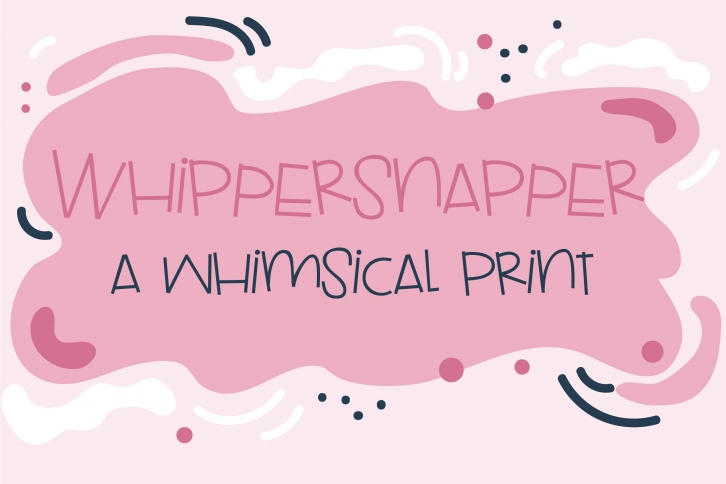
PN Whippersnapper is a trendy and unique font with an authentic style. It was designed by Illustration Ink and it's a great choice for creative people who need such a font. It was released on March 28, 2022 and the file size is 4.29 MB. PN Whippersnapper will add an organic vibe to any design idea!